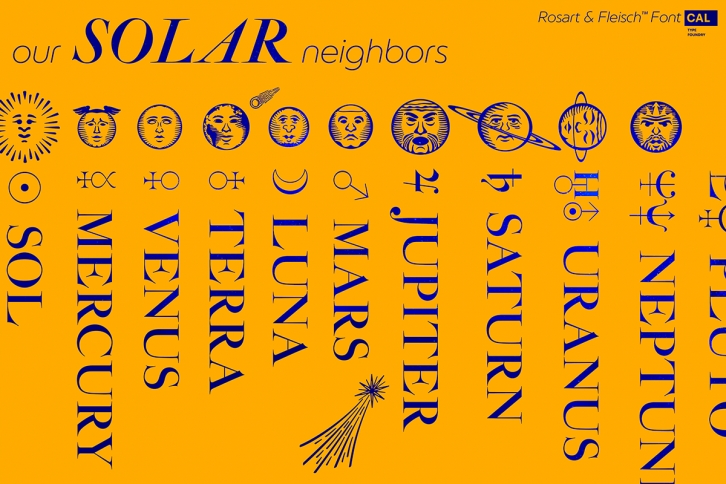
Zodiac and Constellations – The Stars Have Aligned into a Great Font
So what’s your sign? Whatever it is, R&F has it, and in so many ways! Pictograph, symbol, constellation, and picto-constellation are all included.
• Includes Rosart’s original moon and sun faces.
• Faces for the planets to match those for the sun and moon.
• Rosart’s symbols for the planets.
• Astrology symbols including, Rosart’s pictographs for the twelve signs.
• Constellations of the Zodiac from precise star charts.
• Precise small star shapes, so you can design other constellations.
• Pinwheel, saltires, asterisks, solid stars, and even the Christmas star.
Dave Lawrence, “Each symbol was carefully designed to match the main font.”
Constellations are useable even in scientific and education settings: based on current star charts and matched to Bayer designations, these stars shine both in design and accuracy!